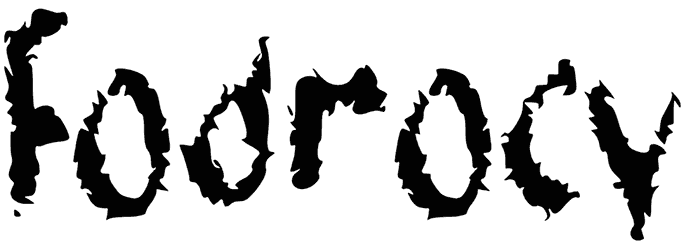
f Fodrocy Font
You can use a chalkboard font like this item to give a hand-drawn and modern visual to your artistic layout. The f Fodrocy font has untidy characters with a natural form that can add a distinct visual to your projects. With a sweet color, your words are going to have a watercolor mood.